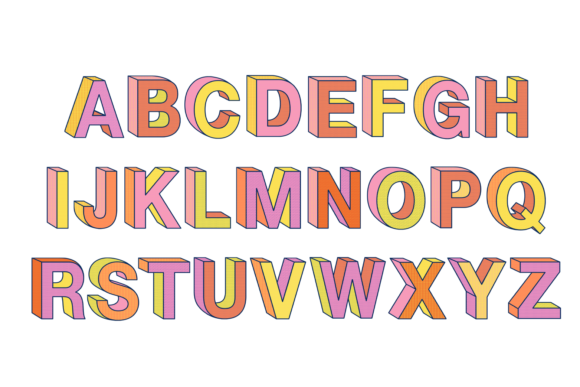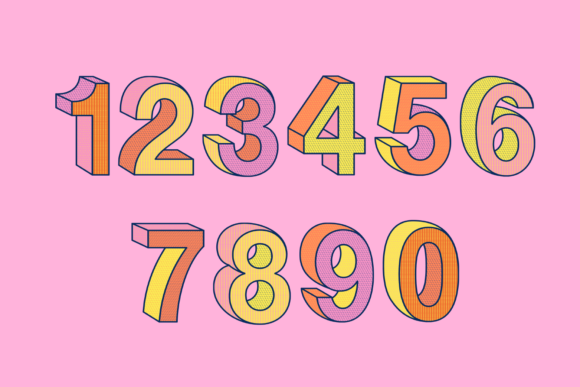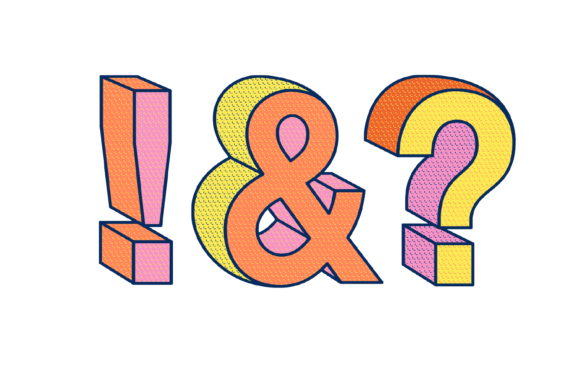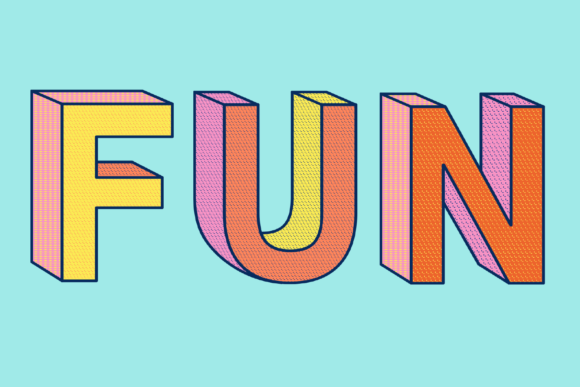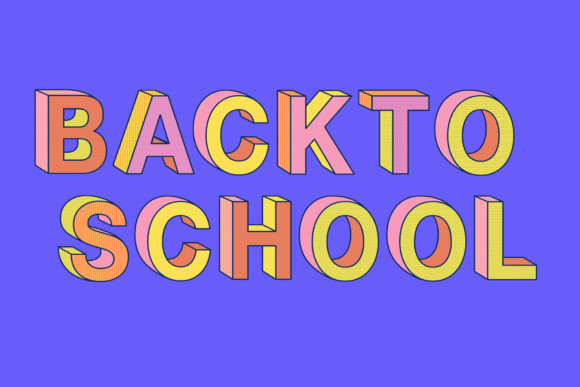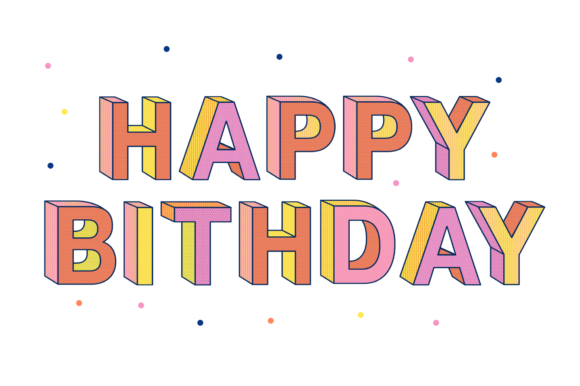
Introducing Block Font: The Iconic Display Font for Creative Projects
In the world of typography, few fonts have made as lasting an impact as Block Font. Inspired by the vibrant spirit of pop art and cartoon typefaces, Block Font has become an incredibly iconic display font, perfect for adding a touch of playfulness and personality to any design project. In this article, we’ll dive into the world of Block Font, exploring its unique features, compatibility, and uses, as well as provide tips and tricks for getting the most out of this amazing font.
What is Block Font?
Block Font is a color font, specifically designed as an Opentype-SVG (OpenType-Scalable Vector Graphics) file. This innovative file format allows for the creation of colorful, dynamic text that can be edited and manipulated with ease. Unlike traditional fonts, which are limited to a single color, Block Font offers a world of creative possibilities with its multi-color capabilities.
Design Possibilities with Block Font
With Block Font, the creative possibilities are endless. This versatile font can be used for a wide range of design projects, from eye-catching posters and flyers to custom signage and party decorations. Its bold, playful style makes it perfect for:
- Creating colorful, pop art-inspired graphics for social media and marketing campaigns
- Designing custom party decorations, such as banners, garlands, and gift tags
- Adding a touch of personality to product labels, packaging, and branding materials
- Developing unique and engaging educational resources, such as worksheets and activity sheets
Tips and Tricks for Using Block Font
To get the most out of Block Font, here are a few tips and tricks to keep in mind:
- Use Block Font in combination with other fonts to create visually appealing contrast and hierarchy
- Don’t be afraid to get creative with font sizes and styles – Block Font looks great in a range of sizes and configurations
- Take advantage of the font’s multi-color capabilities to add an extra layer of visual interest to your designs